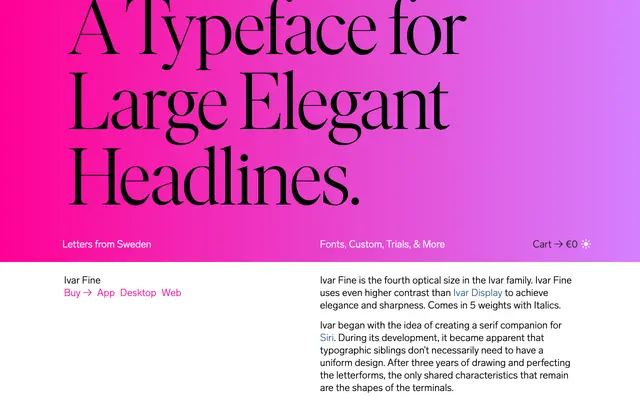
Ivar Fine
The highest-contrast optical size in Göran Söderström's Ivar family, built for large-scale headlines where sharpness and elegance take precedence over text legibility.
Ivar Fine sits above Ivar Display in contrast, pushing the family's already high modulation further to suit very large point sizes. The design draws on the sturdy mid-twentieth-century text faces in the Times tradition, which themselves reach back to sixteenth and seventeenth-century models. Five weights with matching italics cover the range from restrained Light to assertive Black, all sharing the distinctive terminal shapes that tie the wider Ivar family together.
A high-contrast optical size variant within the Ivar family, designed for large headline use with Times-influenced construction and strong modulation between thick and thin strokes.